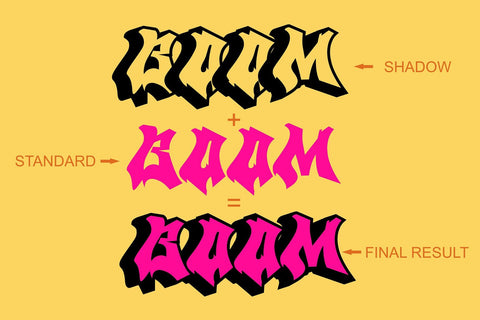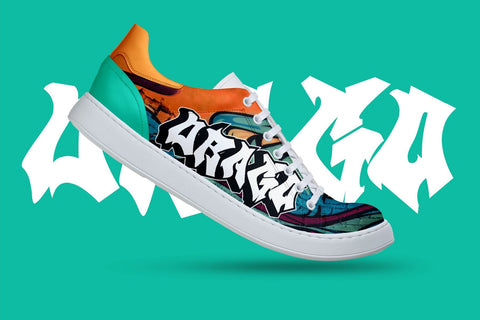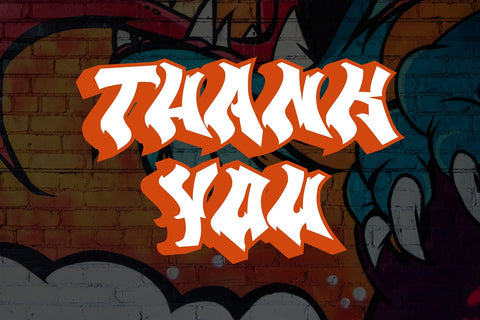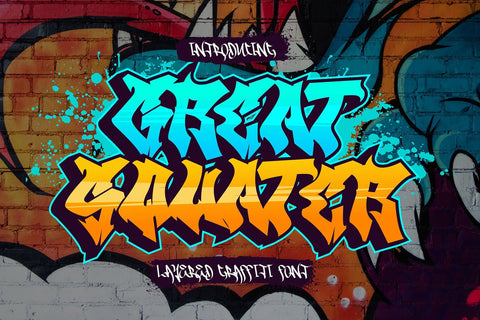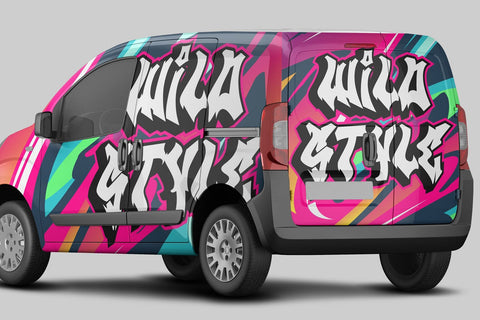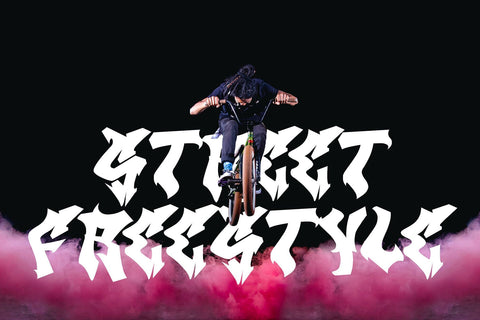
Great Squater - 3d Layered Graffiti Font
"Great Squater" is a graffiti font with two layers: solid and shadow. By using both of these layers in your design, you can create a three-dimensional (3D) effect on your text. Fonts like this are often used in street art, posters, or other designs that aim to add depth and dimension to their typography.
- Graffiti Characters looks